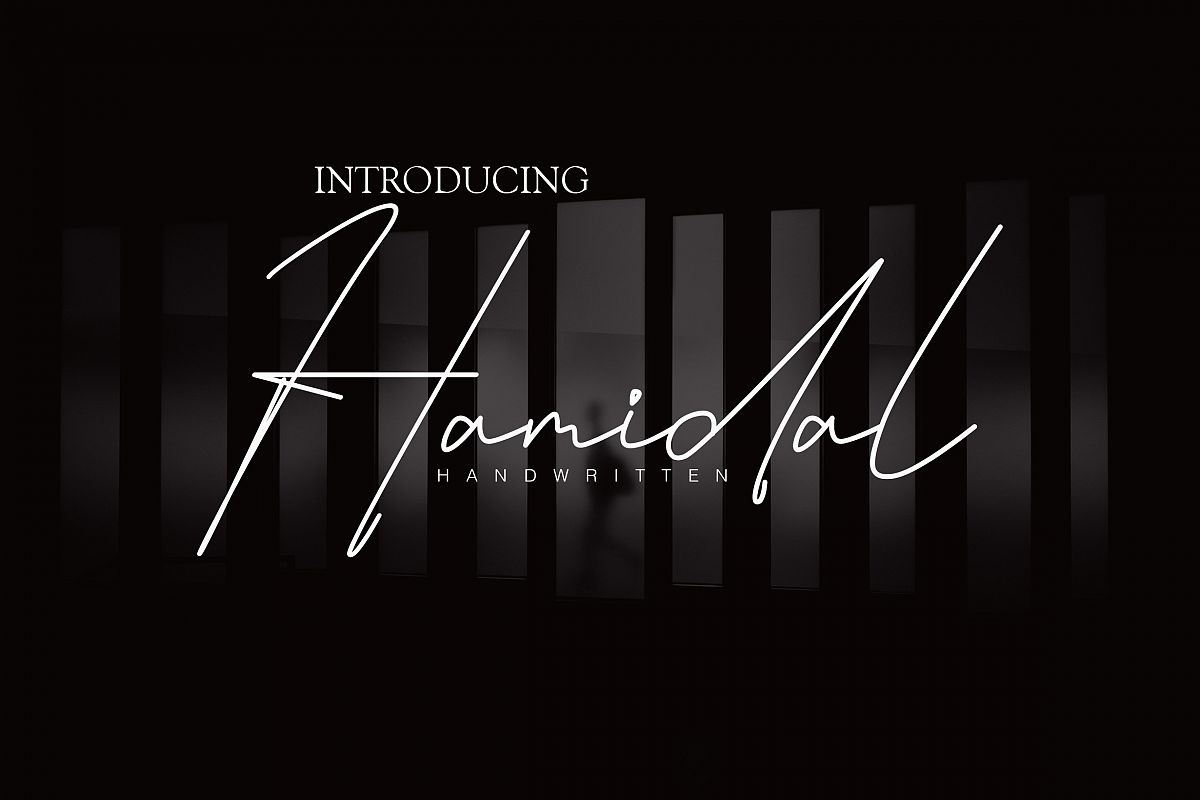
Hamidal Signature
Beautiful handwritten fonts with custom shapes to meet your design needs
and can give the impression of a signature in the design.
This font can be used in both design and non-design applications.
with this font can be used to make:
LOgo
Magazine
Name card
Invitation
Wedding invitation
poster
and many others that you can prove yourself